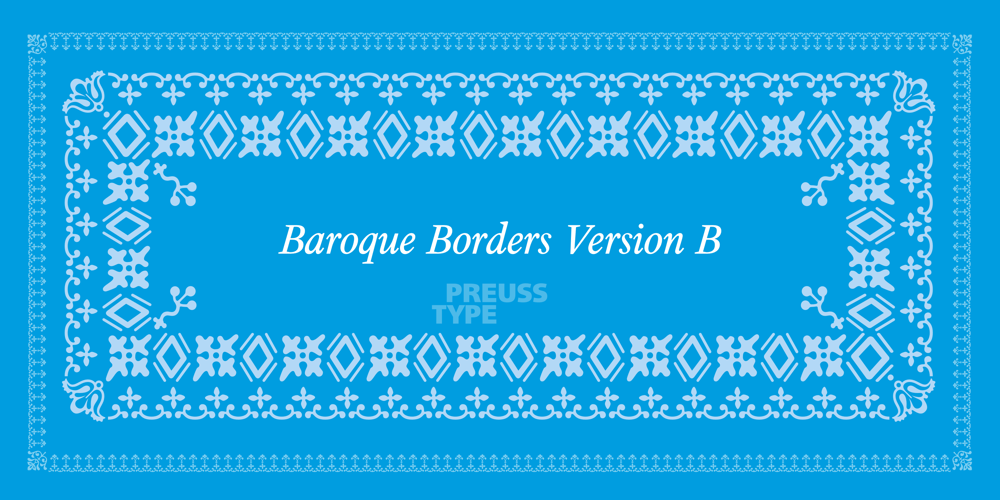
Baroque Borders B
Baroque Borders B font
Baroque Borders B Font Family was designed by Ingo Preuss and published by preussTYPE. Baroque Borders B contains 1 styles and family package options. PT Baroque Borders B is a baroque ornament-font for borders. Especially in combination with Fleischmann Gotisch you can made very impressed greeting cards, wedding-greetings or decorative certificates.